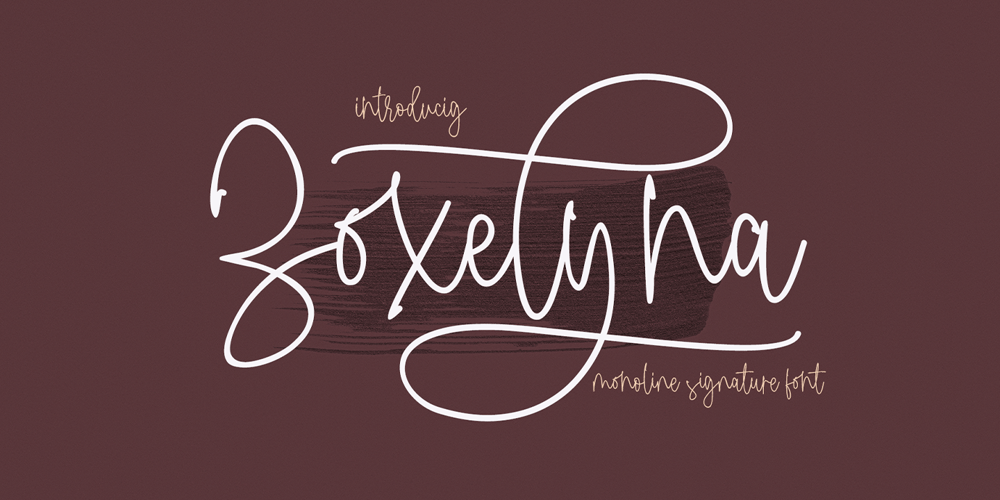
Zoxelyna Font Family was designed by Fadhil Aqsa and published by Meutuwah. Zoxelyna contains 1 styles and family package options. Hello Font Lovers… Zoxelyna is another lovely modern signature font, which is combining the style of classic calligraphy with an modern style. combines from copperplate to contemporary typeface with a dancing baseline, modern and elegant touch. Including alternates, and ligatures.Can be used for various purposes such as headings, logos, wedding invitation, t-shirt, letterhead, labels, news, posters, badges etc.To enable the OpenType Stylistic alternates, you need a program that supports OpenType features such as Adobe Illustrator CS/CC, Adobe Indesign CS/CC, Adobe Photoshop CS/CC, CorelDraw X6-X7 & Microsoft Office. Mention, a font having characters move up and down like a dancer. This freestyle has a very unique style of signature and is very suitable for modern design.THANK YOU SO MUCH.